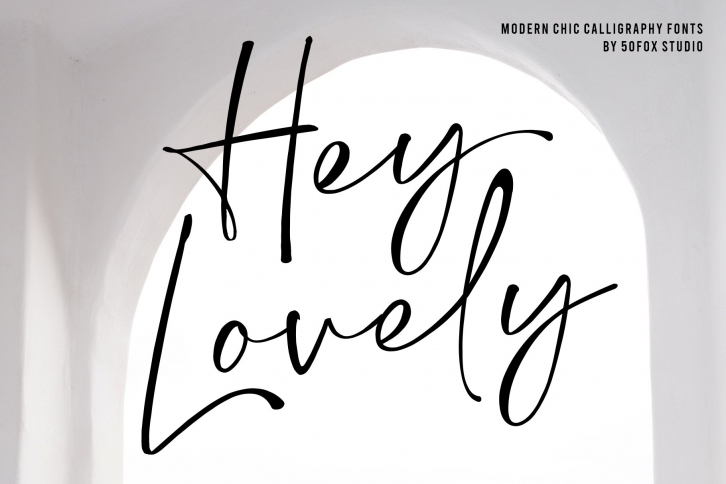
Hey Lovely! Just add ++ before or after your typing to access the swashes.
Hey Lovely! A modern calligraphy of wet ink with quick strokes. It's perfect for bringing a casual style to your design projects.
Hey Lovely Fonts has ligatures & alternative characters. This Font is great for logo, printed quotes, badge, insignia, packaging, headline, poster, t-shirt/apparel, greeting card, and wedding invitation, & etc.